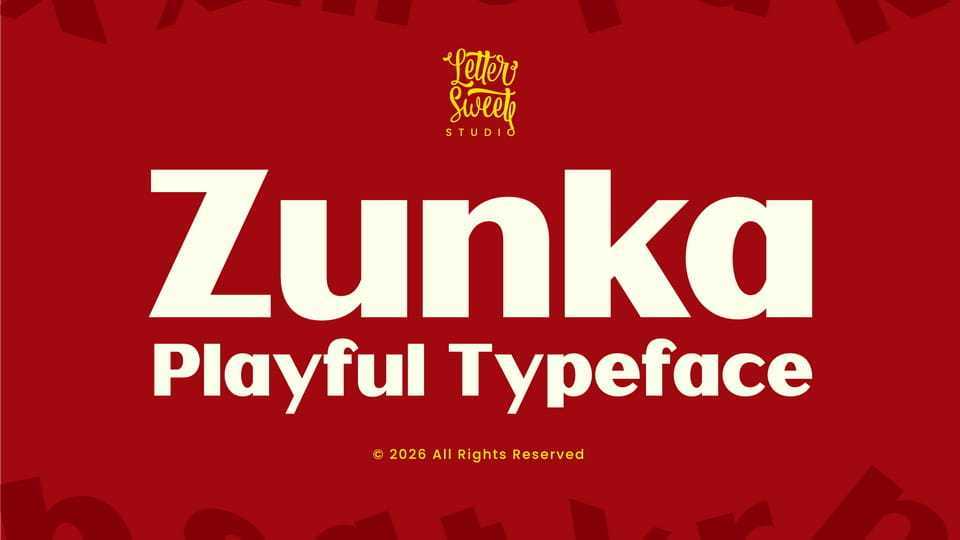
Download Zunka font, a sans serif typeface that delivers a happy and energetic vibe while staying clean and highly readable with its rounded shapes and friendly character.